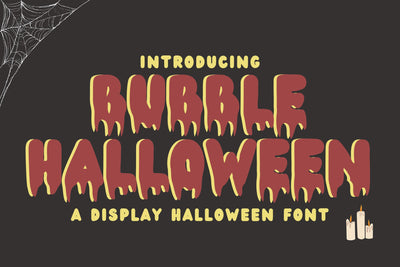
Bubble Halloween
Bubble Halloween – Spooky Dripping Display Font
Bubble Halloween is a bold and playful display font with a spooky, dripping effect, perfect for Halloween-themed designs. This font combines a fun, bubbly style with eerie horror-inspired details, making it ideal for festive and spooky projects. The rounded yet dramatic letterforms are enhanced with a melting, gooey appearance, giving it a chilling yet approachable vibe.
- Dripping Horror Aesthetic: A bold, playful font with a melting, eerie effect.
- Eye-Catching Display Font: Designed to stand out in bold headlines and creative compositions.
- Complete Character Set: Includes uppercase, lowercase, numbers, punctuation, and symbols.